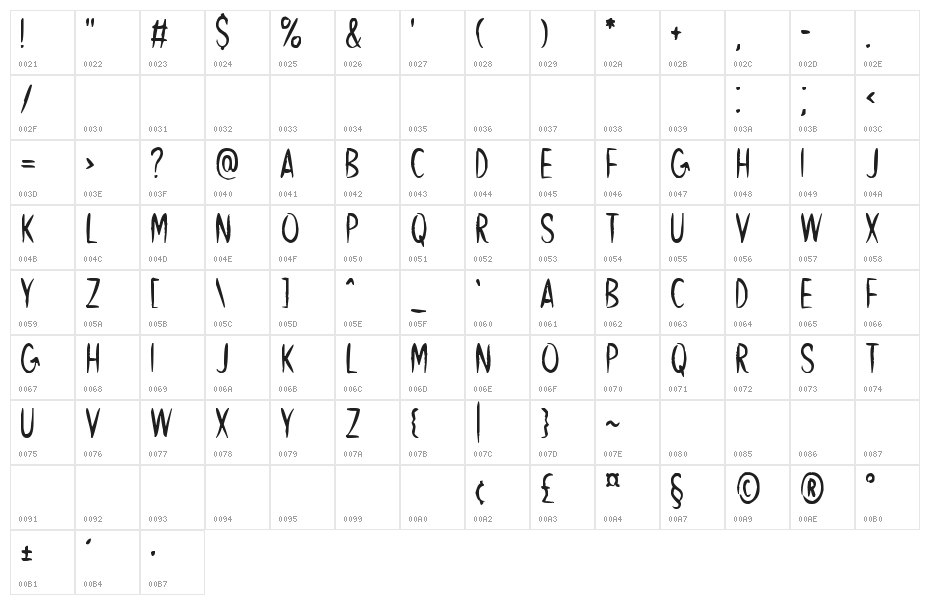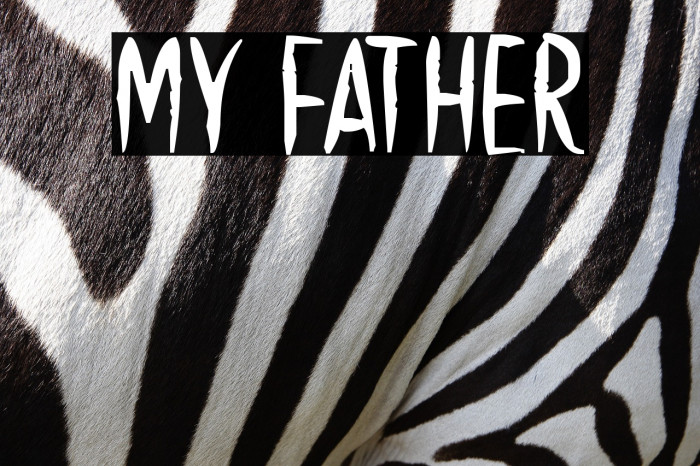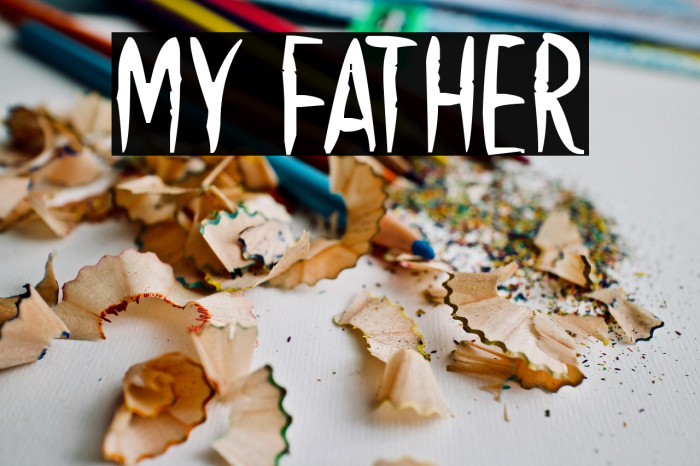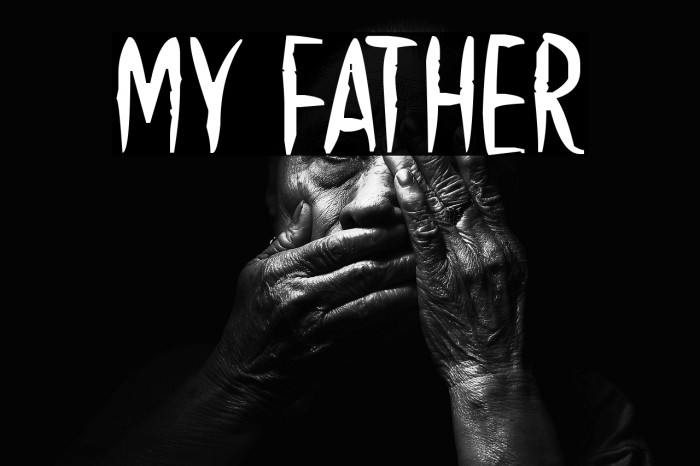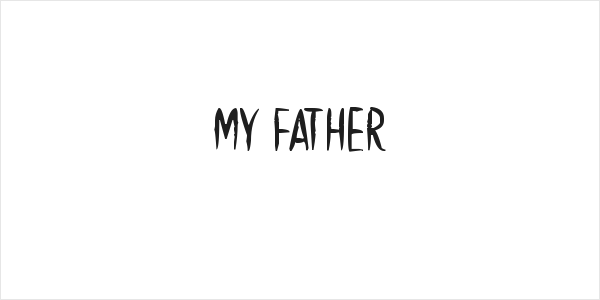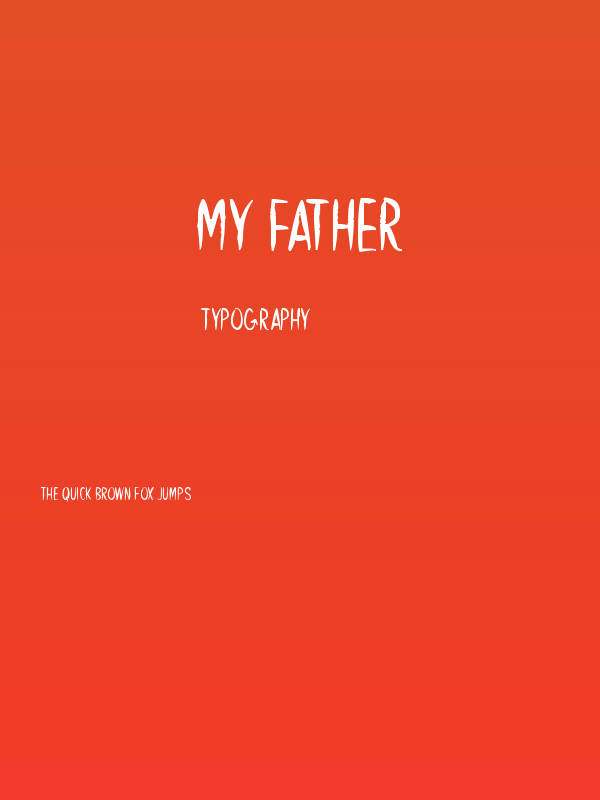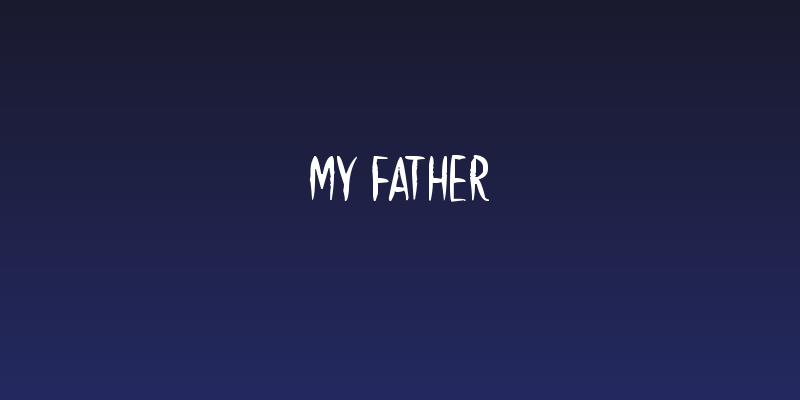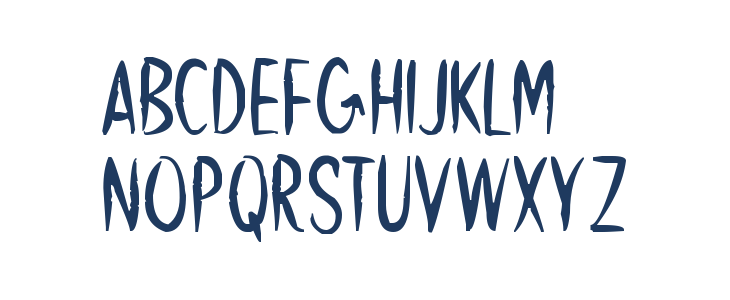
My Father Font
My Father Description
This font features a bold and expressive style with a hand-drawn appearance. The letters are tall and slightly irregular, giving them a dynamic and energetic feel. The strokes are thick and vary in width, adding to the handcrafted look. The uppercase and lowercase letters maintain a consistent style, with the uppercase being slightly more pronounced. The special characters are designed to match the overall aesthetic, with unique and playful shapes. This font is ideal for projects that require a personal touch or a creative flair.
| Proposed Projects | Perfect for posters, album covers, artistic branding, and creative social media graphics. |